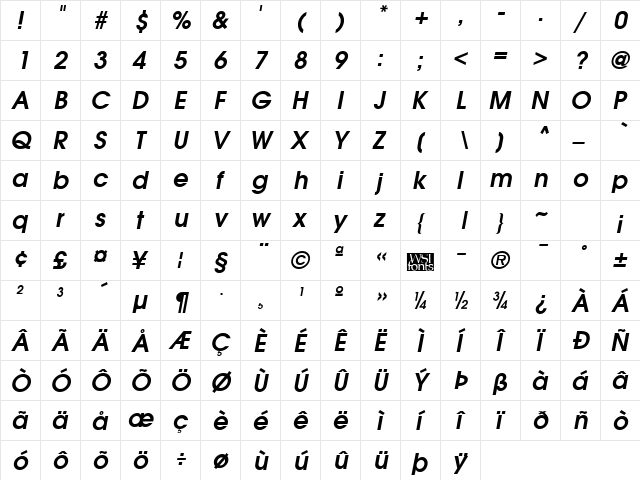
Avian BoldItalic
Design Context for Avian Typeface
Avian offers clean, dependable letterforms without strong stylistic allegiance, making it a practical choice for designers who need flexibility. The slanted form adds forward momentum and visual energy. The heavy weight commands attention and anchors typographic hierarchies.
Pro Tip: Try Avian for annotation and caption copy alongside an upright companion — the contrast in angle creates a dynamic but ordered typographic system.